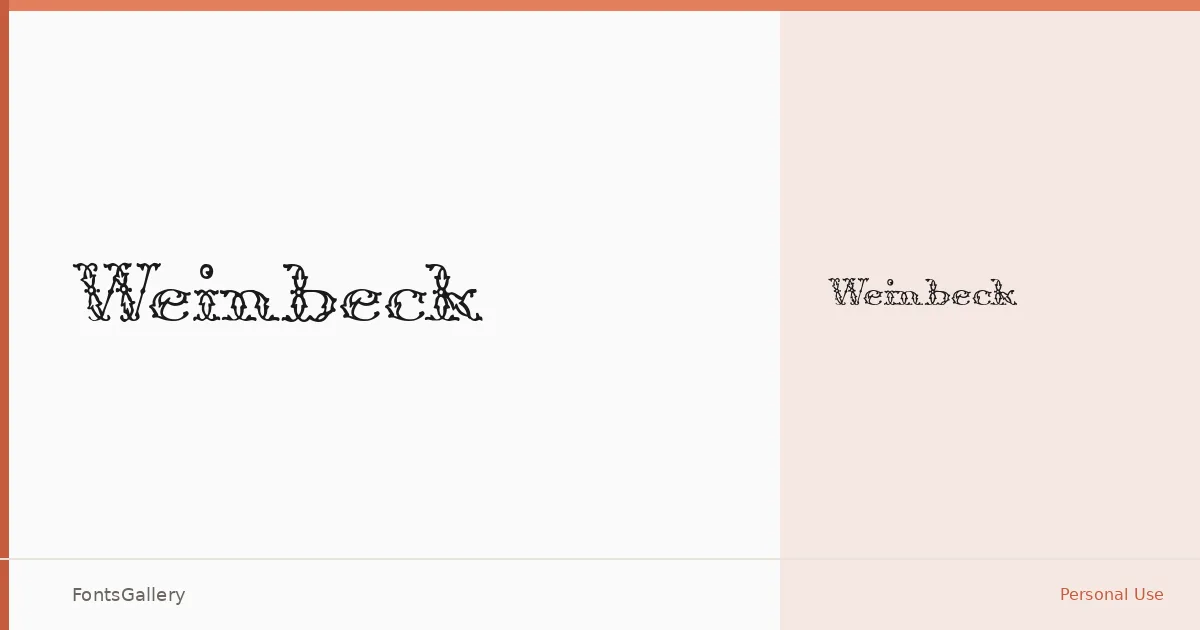
About Weinbeck Font
There is a deliberate formality to these letterforms — the kind of disciplined elegance that recalls hand-lettered titles and engraved certificates from an earlier era. Available as a single Regular weight in TTF format, this display face carries a classic, vintage character that feels considered rather than incidental.
This is an unambiguously display-oriented design, built for moments where refinement needs to land at a glance. The vintage mood sits alongside a genuine elegance — not fussy, but composed. With partial Latin coverage and a single Regular cut, Weinbeck is best understood as a headline instrument rather than a workhorse: one voice, used well.
The natural territory here is branding work, book cover titles, formal certificates, logotype treatments, and editorial posters where a classic register is called for. For body copy or supporting text, it pairs cleanly with neutrals like Helvetica or the structured weight of Audex, while display companions such as Aresink, Alexandria, and Bizantheum can add contrast or complement a layered typographic system.